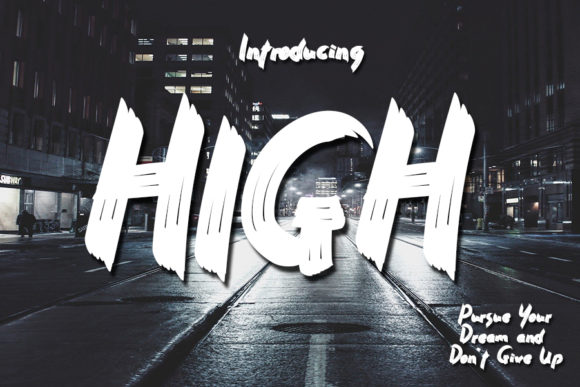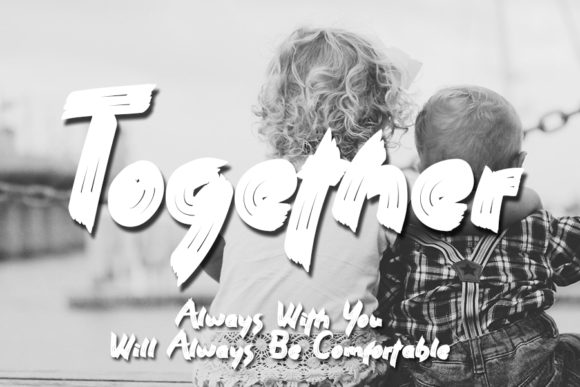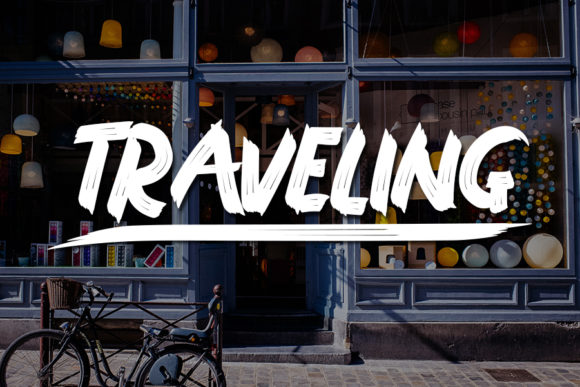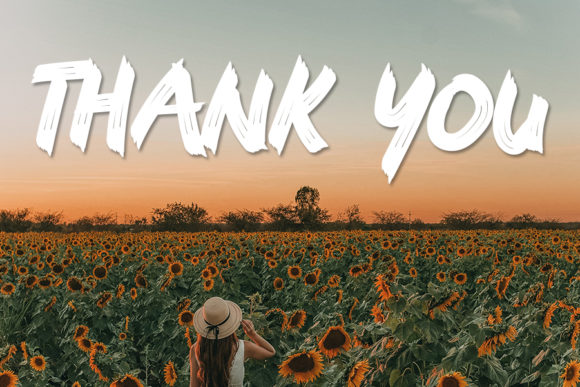
High Font
Introducing “High” – a bold script font crafted in a brush style that exudes confidence and creativity. With its bold and expressive strokes, this font is perfect for creating beautiful and impactful designs.
High’s brush-style letterforms command attention and make a bold statement. Its thick and dynamic brush strokes give it a sense of energy and artistic flair. Whether you’re designing logos, posters, headlines, or any other creative project, High will help you create visually stunning and impactful designs.
This font’s versatility allows it to adapt to various design themes and styles. Its bold nature makes it particularly suitable for designs that require a strong visual presence. Mix High with your creative ideas, and notice how it adds a touch of boldness and greatness to your designs.
Embrace the boldness and creativity of High, and notice how it helps you create beautiful and great designs. Let it be the font that elevates your creative projects and leaves a lasting impression. With High, your designs will make a statement and captivate the attention of your audience.